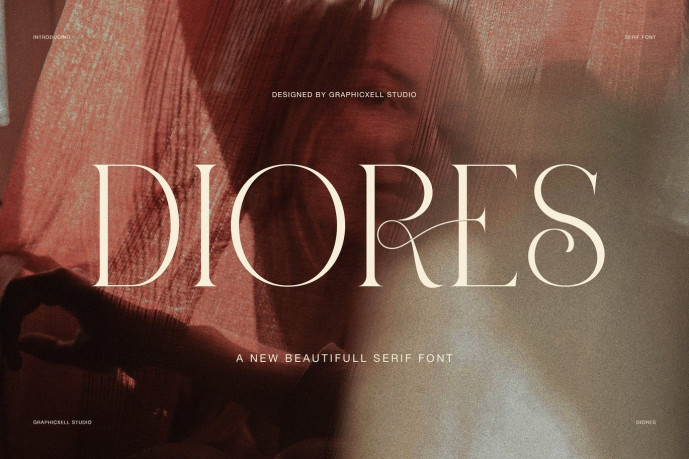
Diores Font
Designer: Graphicxell
Diores Font is a refined display serif designed for designers who seek beauty, grace, and strong visual impact in a single typeface. At first glance, it’s light and luxurious. Yet, the more you look at it, the more character it reveals. Its fine strokes, high-contrast shapes, and flowing ligatures lend each word an artistic and sophisticated touch. This is why Diores is a smart choice for a modern brand that wants to feel premium and memorable.
This typeface has a gentle rhythm and a graceful structure. The large letters appear balanced, while the thin lines add a calm and elegant feel. Furthermore, the decorative ligatures create movement without making the text difficult to read. Thus, Diores feels expressive, yet remains clean. This balance makes it suitable for both headlines and refined branding work.
Diores is particularly effective in large sizes. For example, it looks stunning in logos, fashion editorials, beauty brands, hotel identities, restaurant menus, luxury packaging, product labels, and magazine covers. It also works perfectly for architectural studios, modeling agencies, photography brands, and modern lifestyle campaigns. Thanks to its timeless look, it can suit both classic and contemporary design styles.
Another strength of Diores lies in its elegant details. The ligatures are not merely decorative; they are also useful for creating custom headings and wordmarks. Meanwhile, the overall spacing keeps the font airy and sophisticated. As a result, layouts appear expensive, elegant, and well-composed. Moreover, it pairs beautifully with minimalist serif fonts, soft neutral palettes, and striking photographs.